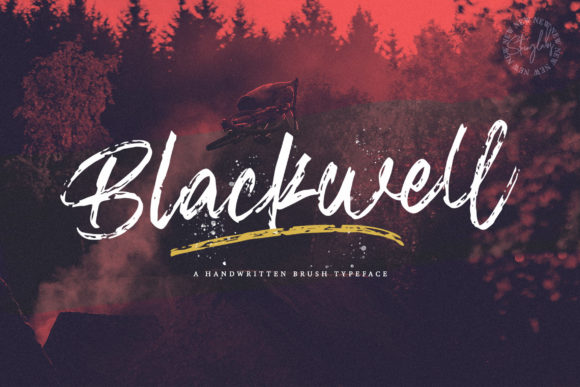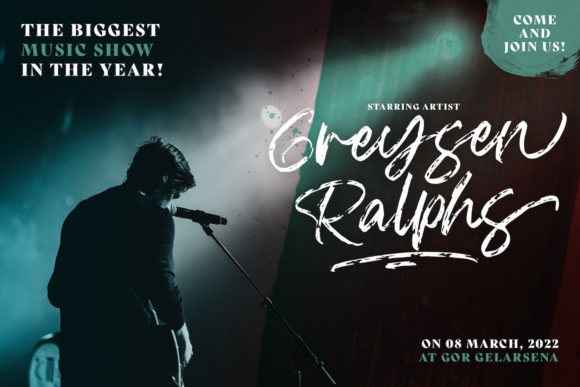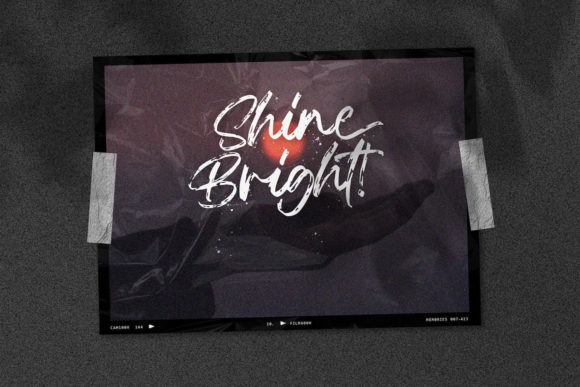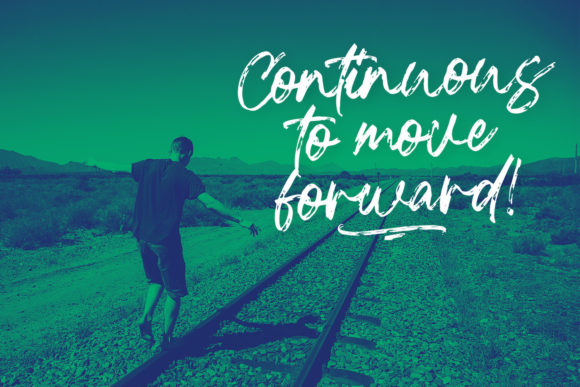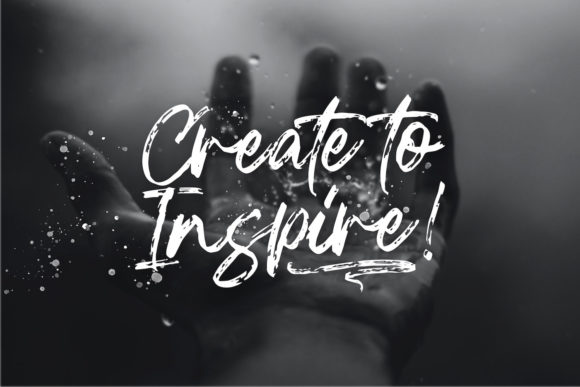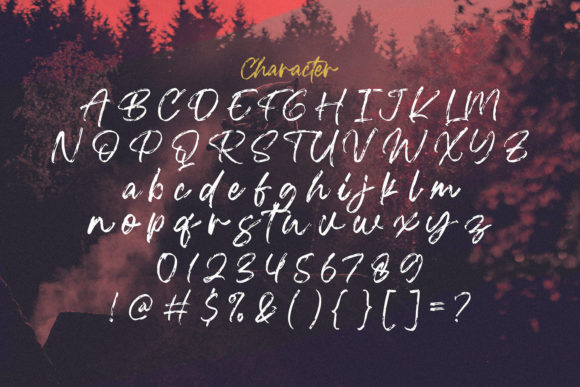
About Blackwell Font
Blackwell is a lovely and brushed script font that exudes elegance and class. This font was particularly crafted for those who need a beautiful and refreshing look to their designs.